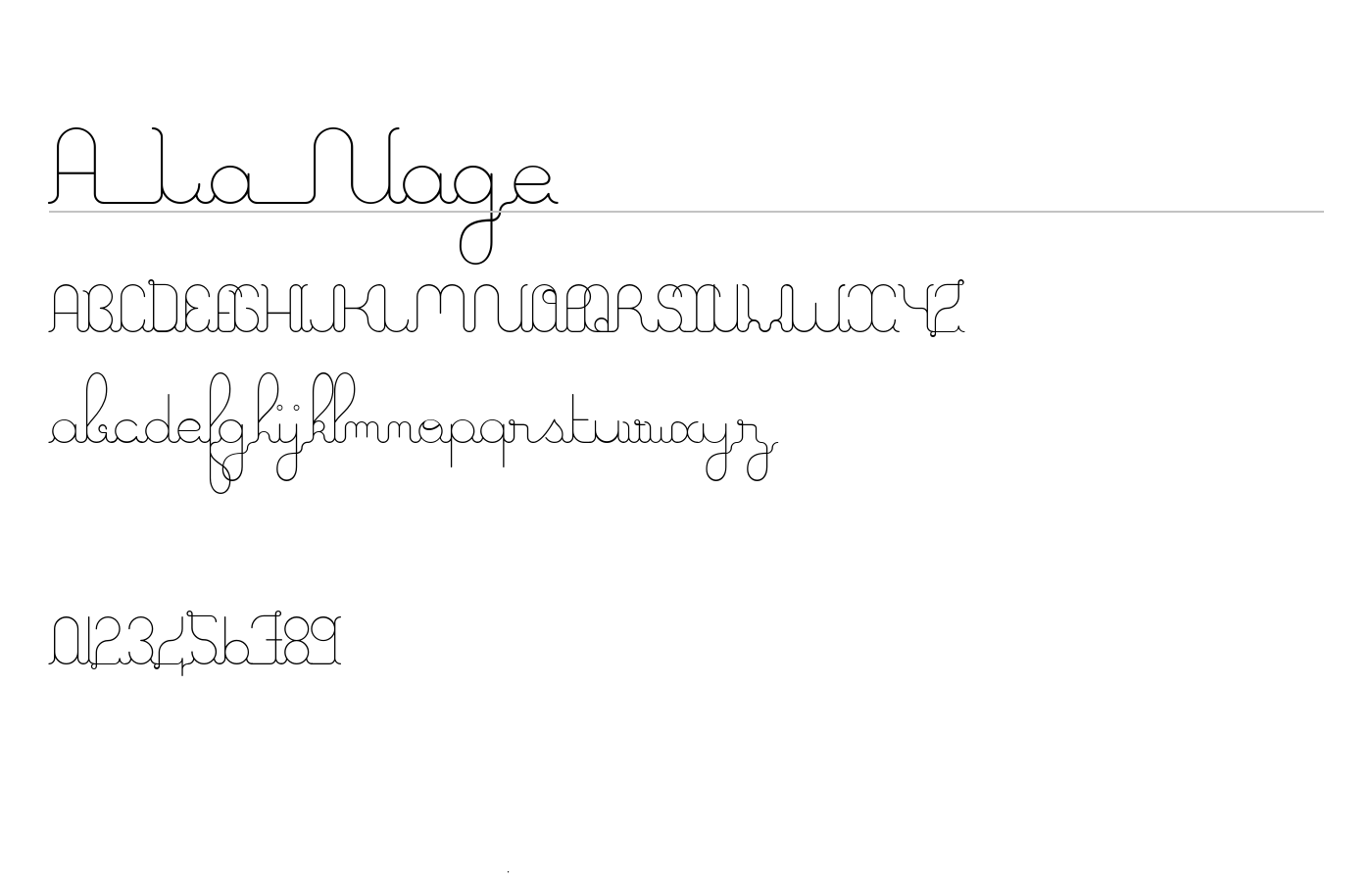
A La Nage is a delicate, light-weight script font characterized by its continuous, single-line strokes that give a handcrafted, airy feel. Its unique looping curves and whimsical connections between letters create an elegant yet playful personality, making it ideal for creative branding, invitations, and artistic projects where a stylish, modern touch is desired. This font works best in large sizes for headlines or logos, where its intricate design can be fully appreciated.
A La Nage Font
About A La Nage Font
| Font family | A La Nage Font |
| Designer | Swimmingpoulp |